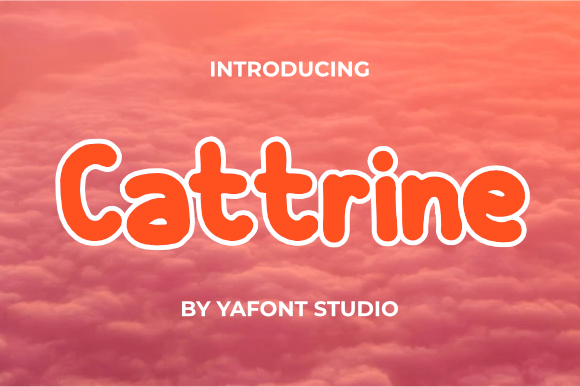
Cattrine Font
About Cattrine Font
Cattrine is a lovely and cute handwritten font. It is the best choice for creating eye catching logos, branding and quotes. Whether you’re looking for fonts for Instagram or calligraphy scripts for DIY projects, this font will turn any creative idea into a true piece of art!